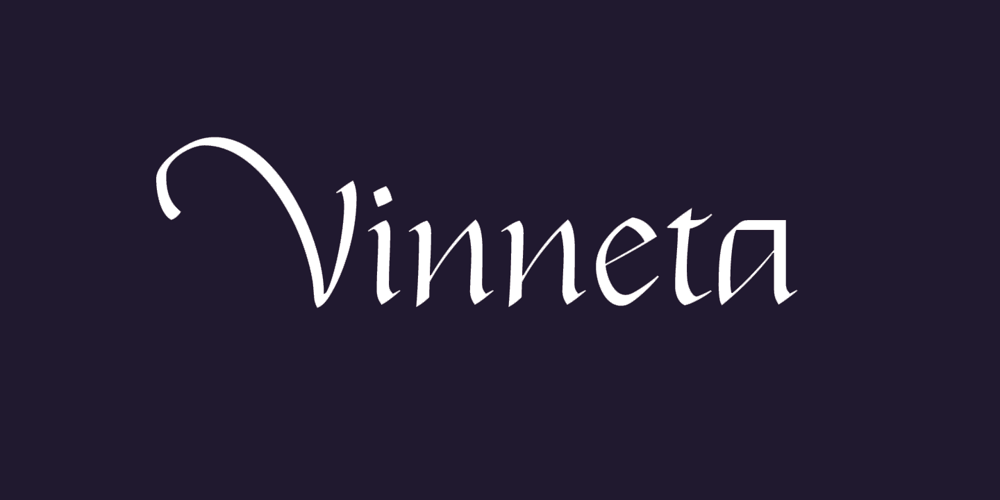
Vinneta Font Family was designed by Dima Pole and published by Dima Pole. Vinneta contains 1 styles and family package options. Vinneta is a direct italic font. Its contours and graceful, and precise. Vinneta has a huge number of alternative variations of the glyphs, 20 stylistic sets, it allows you to create a variety of compositions. In addition Vinneta has 17 OpenType features, including oldstyle numbers, swashes, contextual alternates, historical forms, standard ligatures, discretionary and contextual ligatures, localized forms, stylistic alternates, and more others. For convenience here are two faces, one with stylized capitals (they are different from swashes), in another – classic capitals. Vinneta has characters of all European and Slavic languages. “Vinneta” it is an ancient city of the Venedi (Wends), the legendary highly developed Slavic-Aryan people that lent its name to Venice city, lake Bodensee in southern Germany, the land of Wendland in Lower Saxony; and besides, Lithuanians and Estonians even today, this name referred to the Slavs (Veneja and Vene).